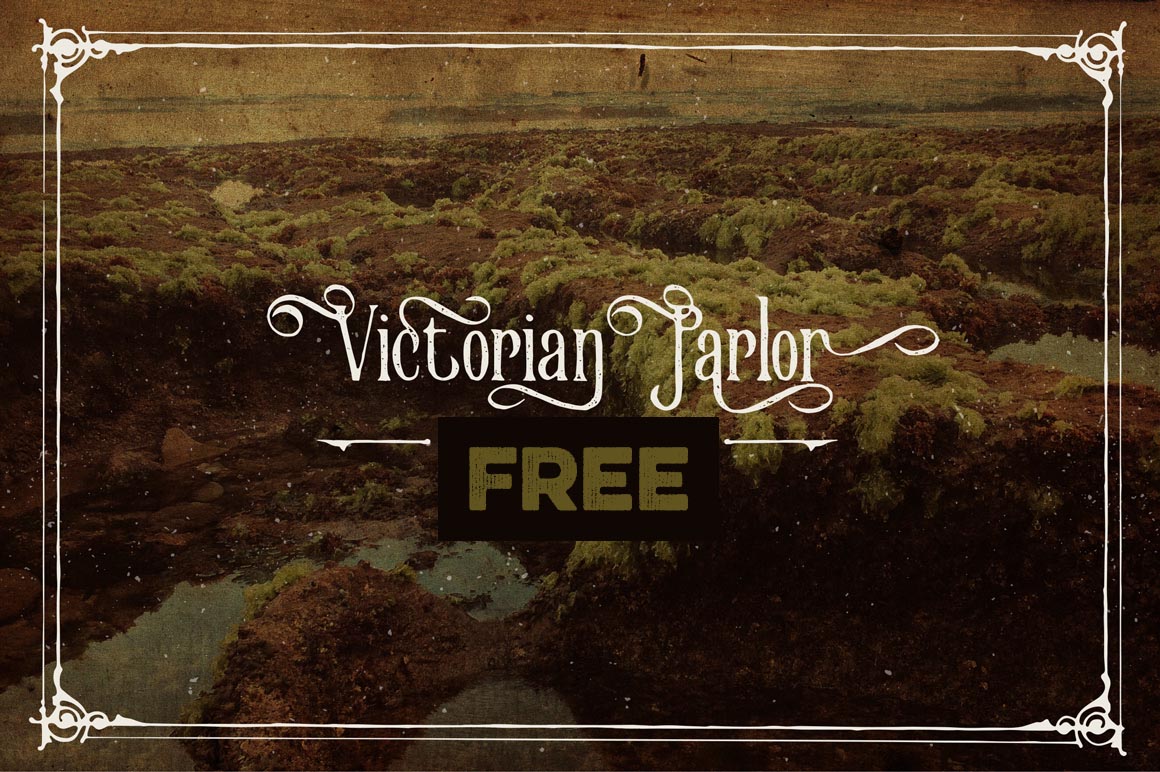
Victorian Parlor – Free Grunge Font
This grunge & vintage style font is from Burntilldead. Great for your new retro or vintage projects. Download and enjoy 😉